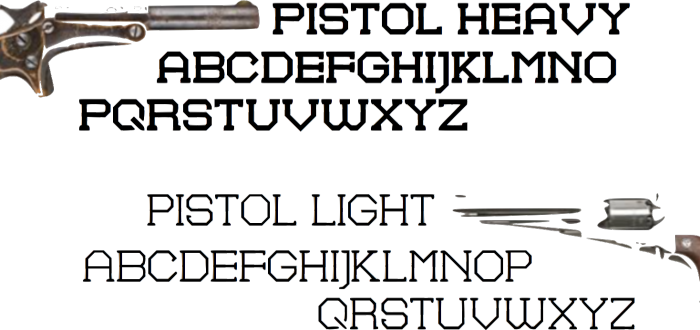
Hi guys! It's been so so long since I was lost on here. This is a font I started a long time ago, inspired by geometry and western movies. Any thoughts?